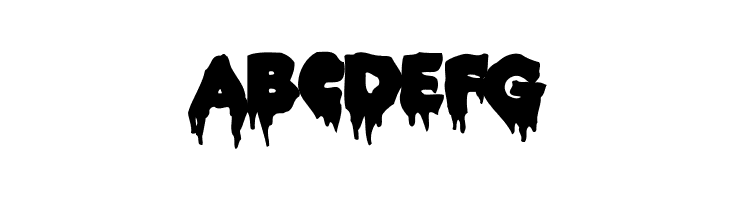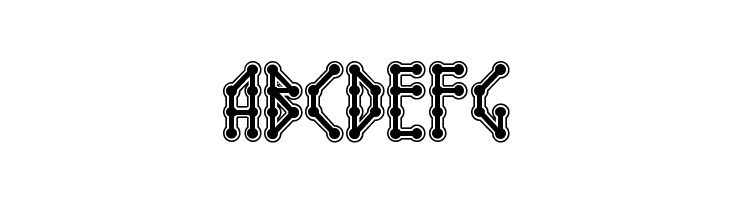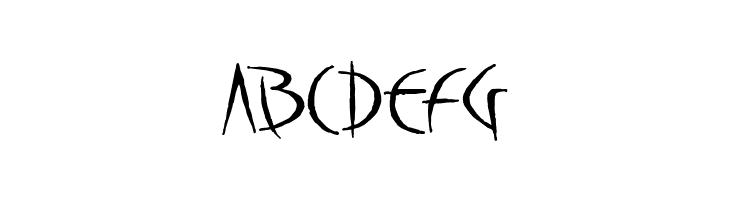
A sharp, edgy font with elongated strokes and a dramatic appearance.
A bold, dripping font with a horror-themed style.
A geometric, dot-connected font with a futuristic, digital style.
A bold, outlined collegiate-style font with a modern, decorative twist.
A whimsical, hand-drawn font with an ancient, mythical feel.
A dot-based, pixelated font with a retro digital aesthetic.